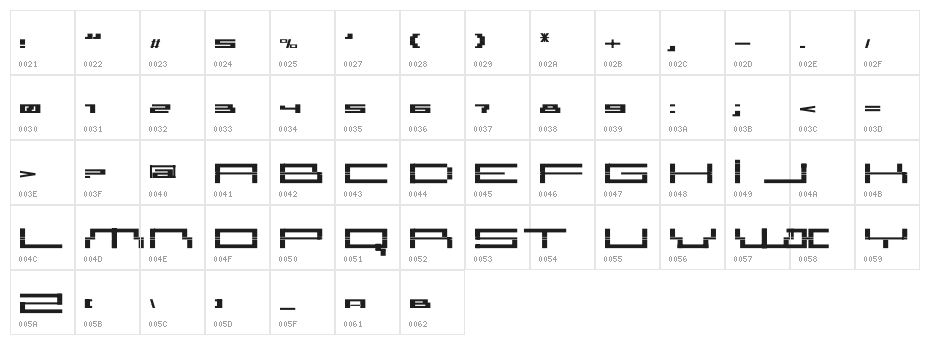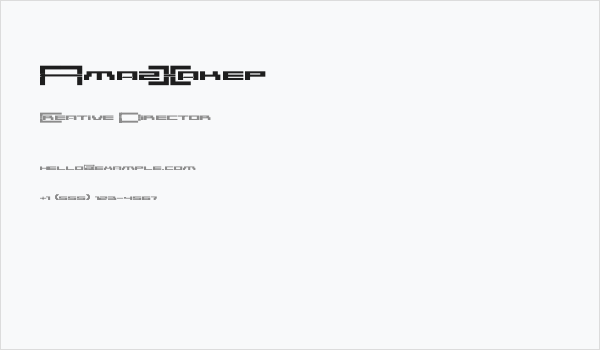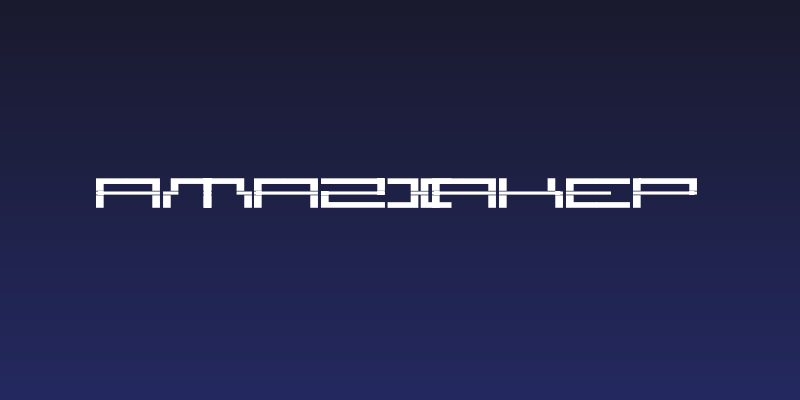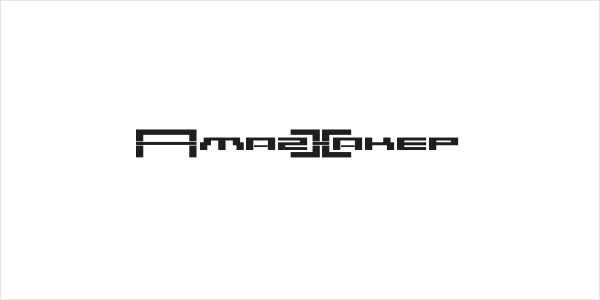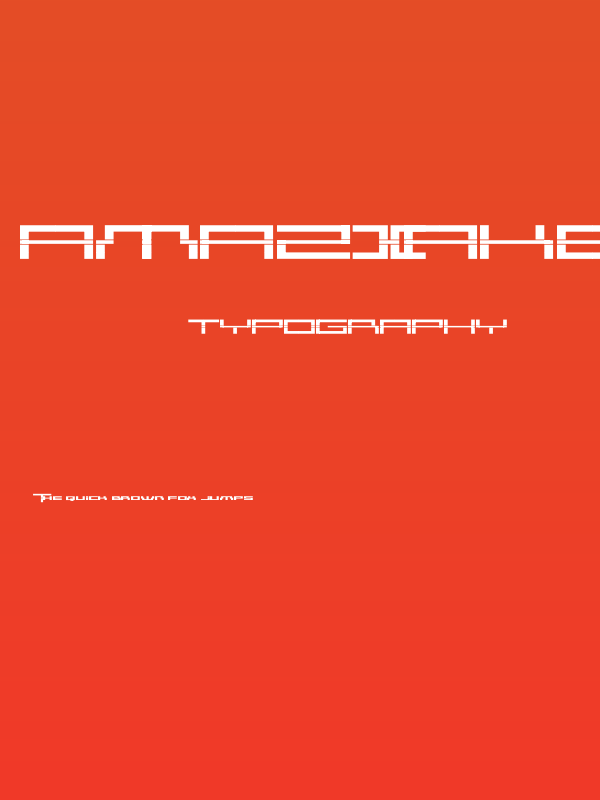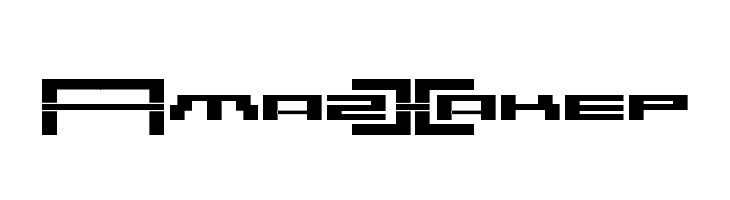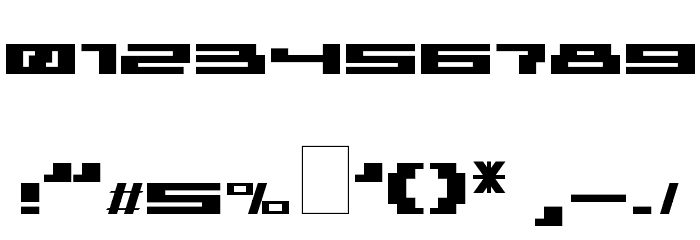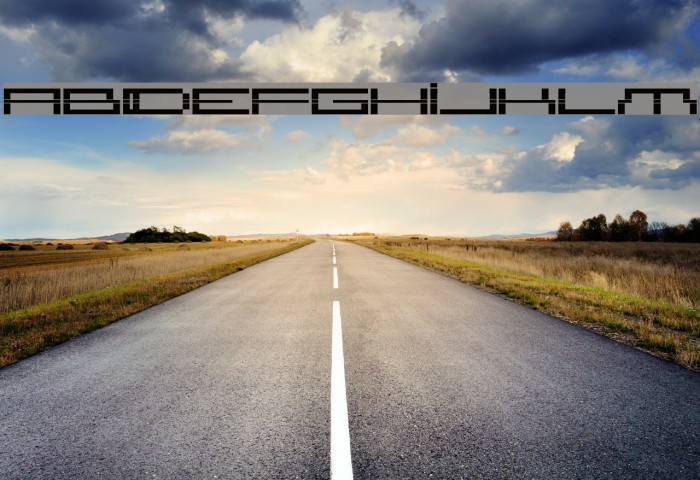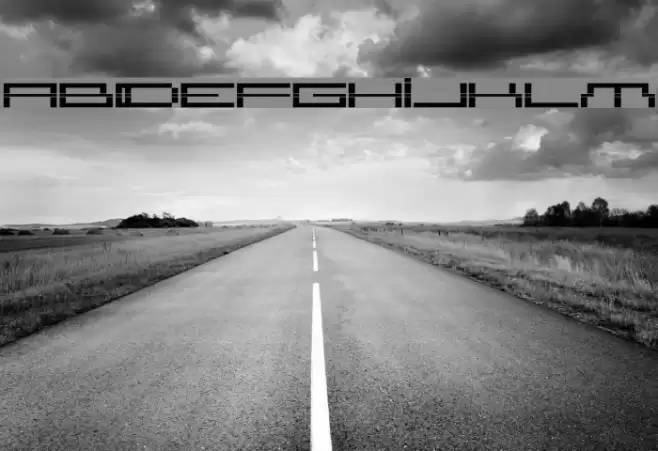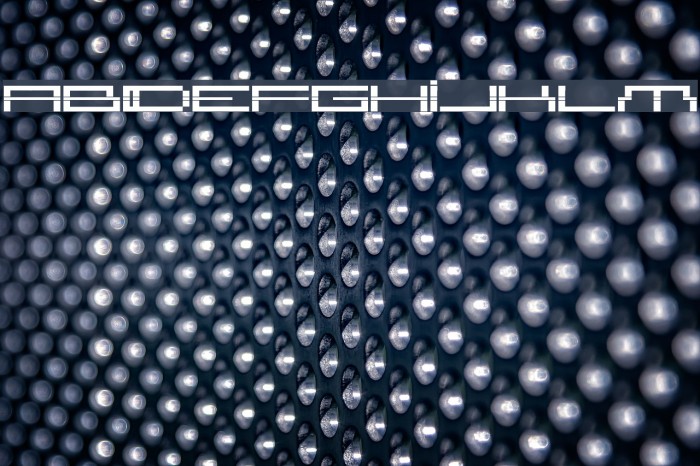
AmazXakep Font
AmazXakep Description
This font features a bold, geometric design with a distinctly digital and futuristic aesthetic. The characters are constructed with sharp angles and straight lines, giving them a pixelated, blocky appearance reminiscent of early computer graphics or video game typography. The uppercase and lowercase letters maintain a consistent height, contributing to a uniform look across text. The numerals and special characters follow the same design principles, ensuring visual cohesion. This font's unique style makes it stand out, ideal for projects that require a modern, tech-inspired feel.
| Proposed Projects | Ideal for tech-related branding, video game titles, digital art projects, and futuristic-themed designs. |